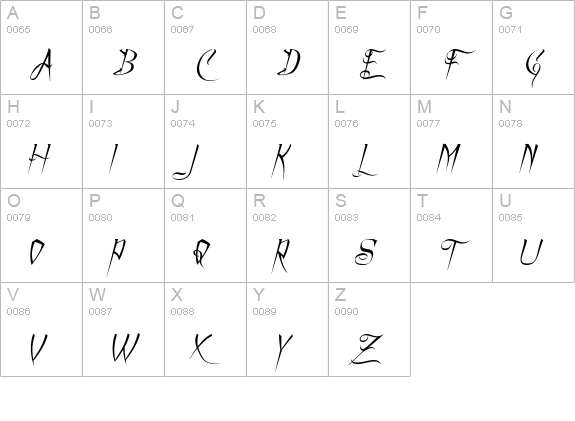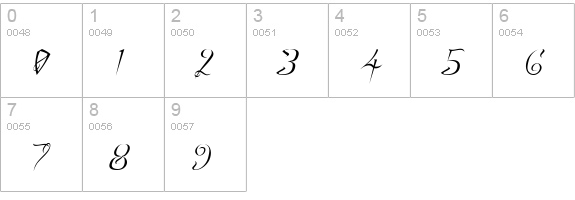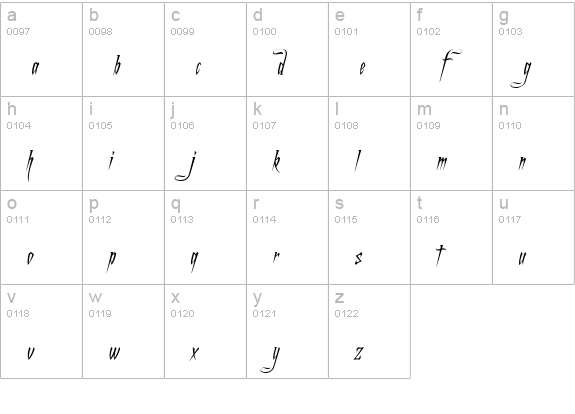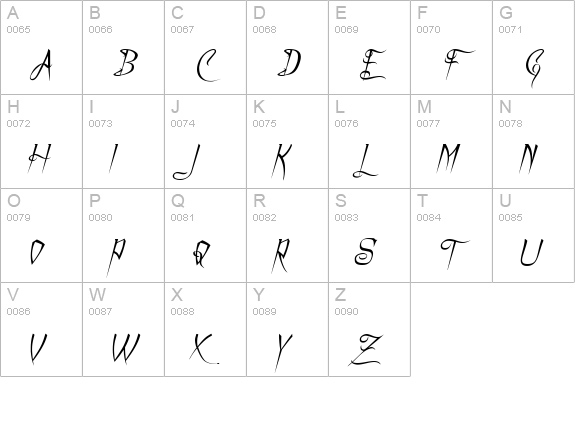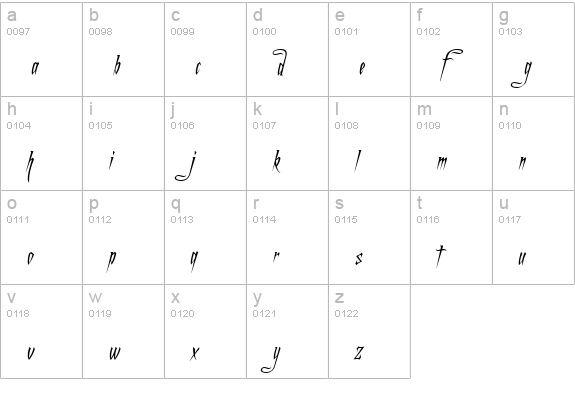
A Charming Font Italic Font Details
A Charming Font Italic is a distinctive, italic variant in the A typeface family \xE2\x80\x94 well suited to design and typography projects.
A Charming Font Italic is a beautifully crafted and elegant font that exudes a sense of sophistication and charm. Its graceful curves and delicate strokes make it the perfect choice for adding a touch of elegance to any design project. Whether you're creating invitations, logos, or branding materials, this font will instantly elevate your work to a new level of sophistication. With its italicized style, A Charming Font Italic adds a sense of movement and fluidity to your designs, making them visually captivating and engaging. It effortlessly captures attention and creates a lasting impression. One of the best things about A Charming Font Italic is that it is completely free to download at FontsMarket.com. This means that you can easily access and enjoy this beautiful font without any cost. It's a fantastic option for designers on a budget or anyone looking to add a touch of elegance to their projects without breaking the bank. The versatility of A Charming Font Italic is another standout feature. It can be used in a wide range of design applications, from print materials to digital projects. Its legibility and readability make it a reliable choice for body text, while its stylish design elements make it a standout choice for headlines and titles. In addition to its aesthetic appeal, A Charming Font Italic also offers a variety of special characters, making it suitable for multilingual projects. It supports a wide range of languages, allowing you to effortlessly communicate your message to a global audience. Overall, A Charming Font Italic is a versatile and visually pleasing font that is sure to enhance any design project. Its elegant style, free availability, and multilingual support make it a must-have for designers and creatives alike. Download it today from FontsMarket.com and elevate your designs to new levels of elegance and charm.